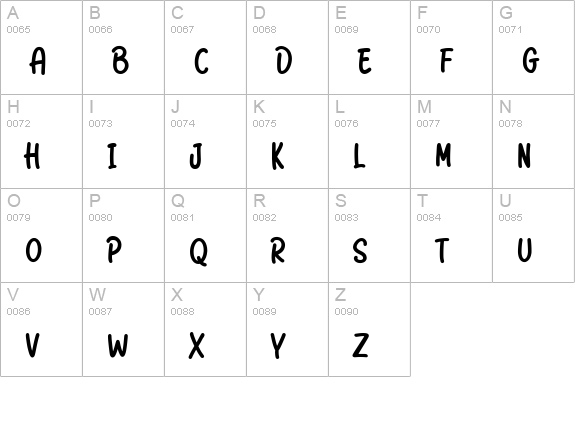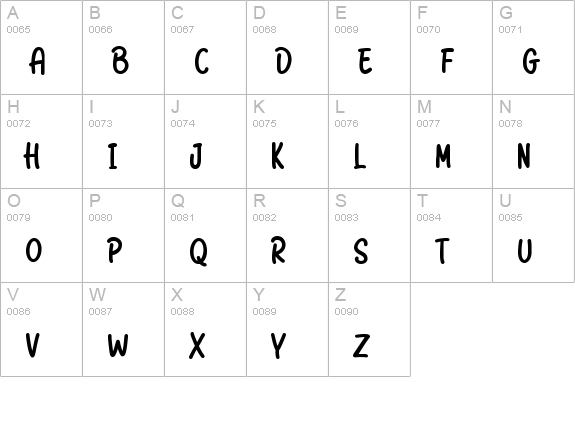
Just Squash Kids Font Font Details
Just Squash Kids Font is a playful and whimsical typeface that is perfect for children's projects, school materials, and any design that requires a fun and energetic touch. This font features rounded edges and bold characters that exude a sense of cheerfulness and creativity. Just Squash Kids Font is versatile and can be used for various purposes, from posters to invitations to branding.